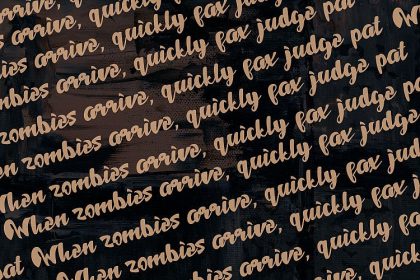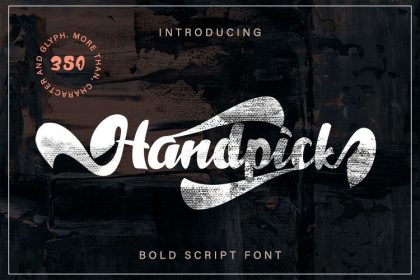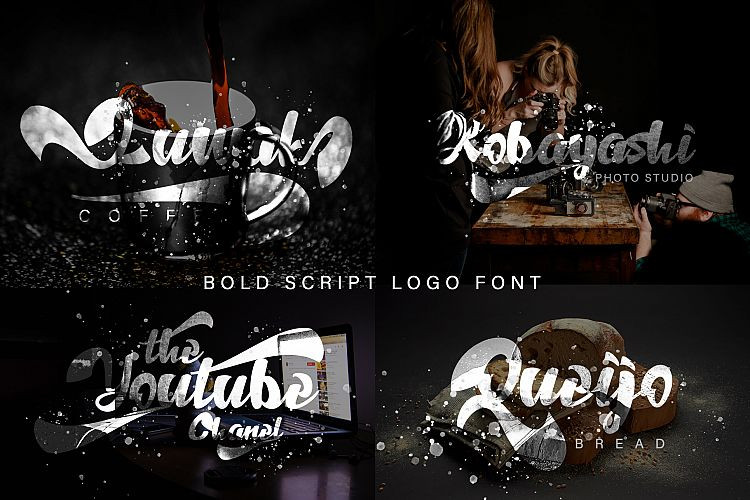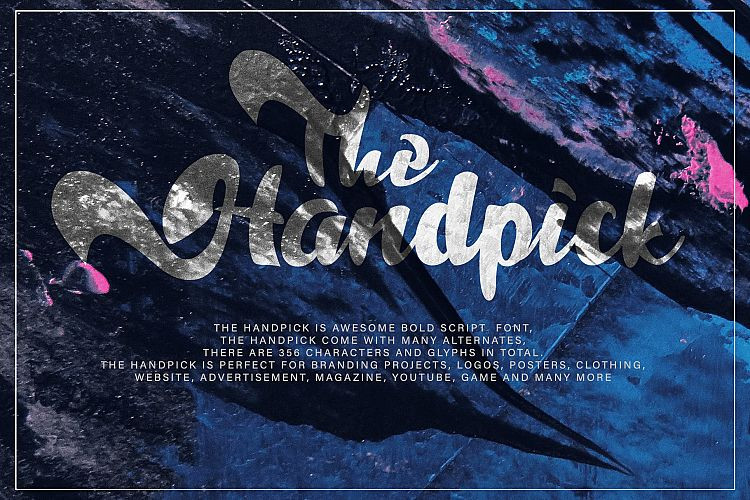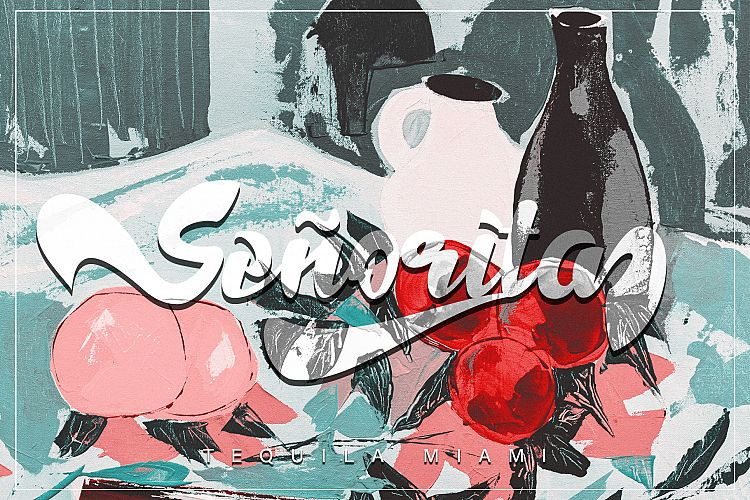
Handpick Bold Script Font
This is a hand-lettered bold and smooth script, inspired by handlettering, bold script logotype and kids font! Introducing Handpick Font. It’s awesome bold script font, The handpick come with many alternates, There are 356 characters and glyphs in total. The handpick is perfect for branding projects, logos, posters, clothing, Website, advertisement, magazine, youtube, game and many more.